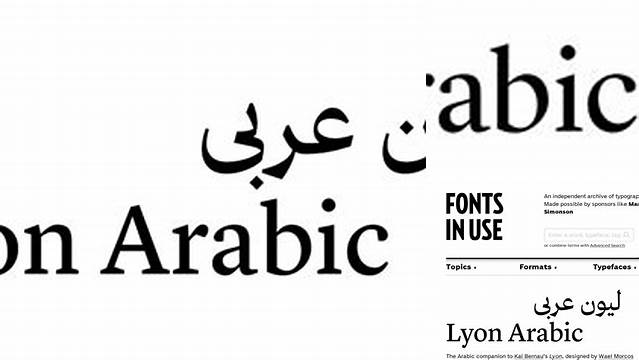
What Makes Lyon Arabic Display Font So Special?
Okay, guys, let's talk about what makes the Lyon Arabic Display Font a real standout. First off, it's got that undeniable Arabic charm. The curves, the flow, the intricate details – they all come together to create something visually stunning. But this isn't just any Arabic font; it's a display font. This means it's designed to grab your attention, perfect for headlines, logos, posters, and any other place where you want to make a bold statement. Imagine this: you're creating a poster for an event, and you want a font that's both elegant and eye-catching. The Lyon Arabic Display Font is a fantastic choice. It's not too formal, not too casual – it strikes that perfect balance that draws people in. Its versatility is another key feature, allowing you to use it in a variety of contexts. Whether you are designing for a brand that wants to convey cultural heritage or a modern design, this font can be easily incorporated.
Moreover, the font’s unique aesthetic contributes to its special nature. Its distinctive letterforms go beyond simple functionality; they tell a story. They carry a rich cultural heritage within them, which helps the display font create a unique identity for your design. When we look at each letter, it's not just a character, it's a piece of art. This level of detail and artistry is what sets this font apart from the crowd. The care and attention that has gone into crafting each glyph is evident, ensuring that the font looks fantastic at any size. Additionally, the Lyon Arabic Display Font offers a balance between traditional Arabic calligraphy and modern design sensibilities. It is a bridge between the old and the new. This balance allows it to fit seamlessly into contemporary designs while still retaining its cultural roots. This feature ensures that the font is still relevant in the fast-changing landscape of design trends. Finally, the legibility of the Lyon Arabic Display Font is an often overlooked factor. A font may have a gorgeous appearance, but if it's not easy to read, it won't serve its purpose. With this font, readability is a priority, making it suitable for both short text and longer passages. This is essential, especially when using it for display purposes, where clarity is key.
The Best Uses for the Lyon Arabic Display Font
Now that you've got your hands on the Lyon Arabic Display Font, let's talk about how to put it to work! This font is a superstar in the display category, so think big and bold! It's perfect for headlines. Imagine a website with an eye-catching header, a poster with a striking title, or a logo that just screams elegance. The font’s unique aesthetic is also well-suited for creating visual identities. Branding a product or service is so much easier with an appealing font. The font’s distinctive letterforms ensure that your brand stands out from the crowd.
Moreover, this font works great for invitations and greeting cards. Add a touch of sophistication to your personal or business correspondence. This font can be used to add a unique cultural touch to your designs, especially when used in projects that celebrate Arabic culture or heritage. Create flyers, social media graphics, and marketing materials that will definitely catch the eye. Another excellent use is for creating quotes and short text snippets. Select and format these for social media posts, website banners, or any project where you want to highlight a phrase or idea. The Lyon Arabic Display Font is also great for any design project that requires a touch of artistic elegance. The font will add flair to creative projects. When using the font, consider its legibility and style. It's a display font, so it's best used for short text. Don't overdo it. Keep it for the parts where you want people to stop and stare. Use it to highlight the most important information, and pair it with a font that's easier to read for the body text. This way, you'll get the best of both worlds – the attention-grabbing power of the display font and the readability of a more traditional font.
Designing with the Lyon Arabic Display Font: Tips and Tricks
Alright, let's get into some design tips and tricks to make the most of the Lyon Arabic Display Font. First and foremost, think about context. Where will your design be seen? A website header? A printed poster? The context will influence how you use the font. Because it's a display font, consider using it for headings, titles, and short bursts of text. The key is to make the font the focal point, but not the entire design. This is where good typography comes in. Pay attention to the spacing between letters (kerning) and lines (leading). These details can make a huge difference in readability. Experiment with different sizes and weights. See how the font looks at different scales. Try it in different colors and see what looks best. Play around with different backgrounds, because the font needs to complement your design, not compete with it.
Another design tip is to always test. Before you finalize your design, view it on different devices and in different sizes. Does it look good on a phone? What about a large screen? Is it clear and easy to read at a distance? Make sure you always proofread your text. Look out for any typos or errors. A design with a typo can ruin the entire effect. Another tip is to avoid using the font for large blocks of text. It's designed for display, not for reading a novel. Remember to use it in moderation. Don’t overload your design with the font; a little goes a long way. When used in moderation, it creates emphasis, without overwhelming the viewer. Think about contrast. Pair the font with a simple, easy-to-read font for the body text. This will make the display text stand out even more. This contrast helps in creating a more visually interesting design. The key is to use it to draw attention to key elements. Finally, when using the font, ensure that you respect the font's design. Choose colors, sizes, and layouts that complement the font's unique style and characteristics.
Lyon Arabic Display Font in Logo Design
Okay, logo designers, listen up! The Lyon Arabic Display Font can be a real game-changer for your projects. Its elegant and distinctive style makes it an excellent choice for creating logos that stand out. Think about the brands that could benefit from this font: businesses with an Arabic connection, luxury brands, or any company that wants to convey a sense of sophistication and creativity.